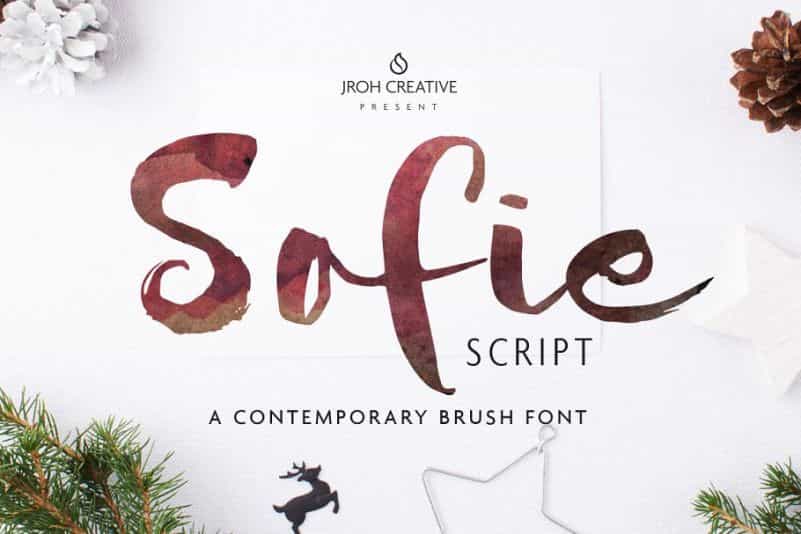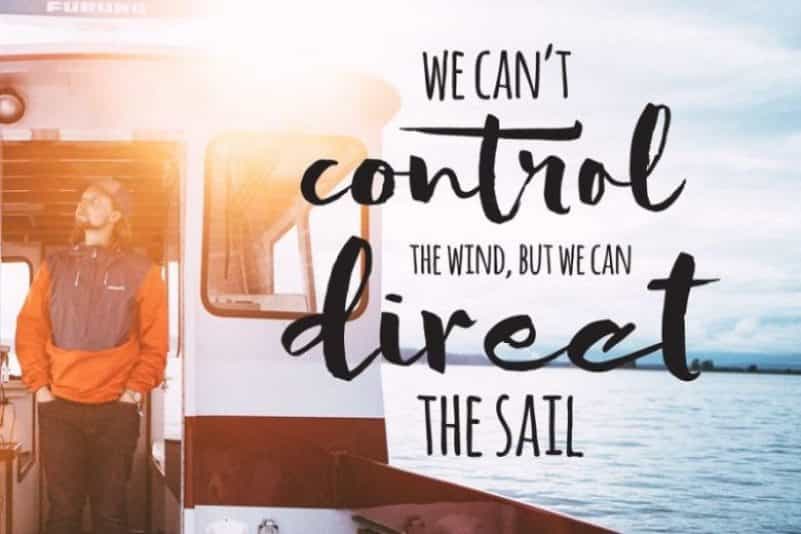
Sofie Brush Font This font is hand made with great dry brush strokes that will be suitable to deliver a very bold message in your design without loosing the natural feel. It is created by JROH Creative and then posted on the social network profile. Sofie Script, a contemporary brush font with simple dancing base and bold as we are using thick winter jacket.